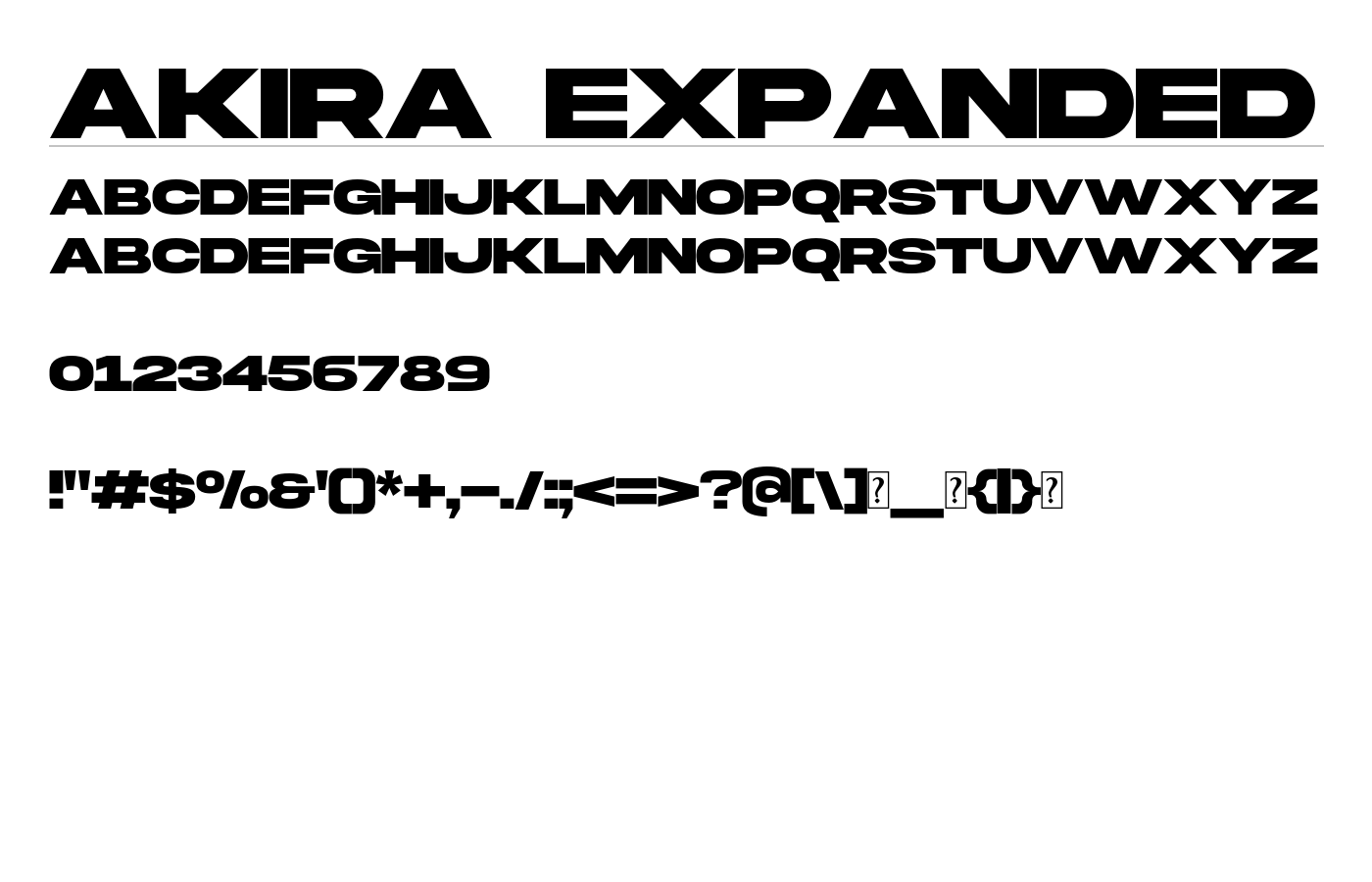
Akira Expanded is a bold, wide sans serif font with a strong, modern presence. Its thick, uniform strokes and geometric shapes give it a powerful and confident feel, making it ideal for eye-catching headlines, branding, and display use. This font works especially well where impact and clarity are needed, such as logos, posters, and editorial designs.
Akira Expanded Font
About Akira Expanded Font